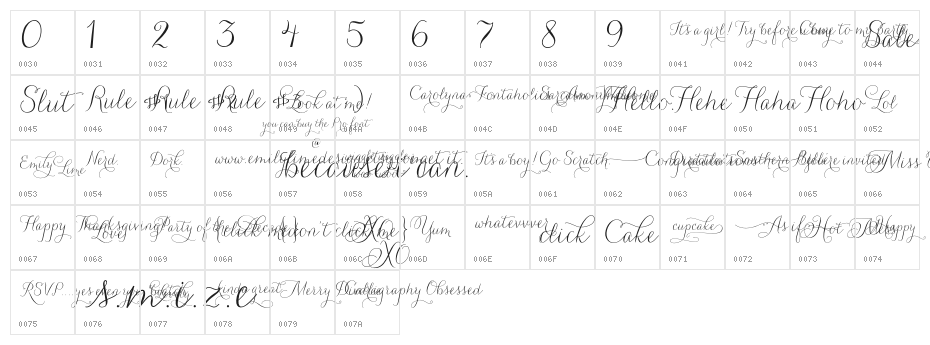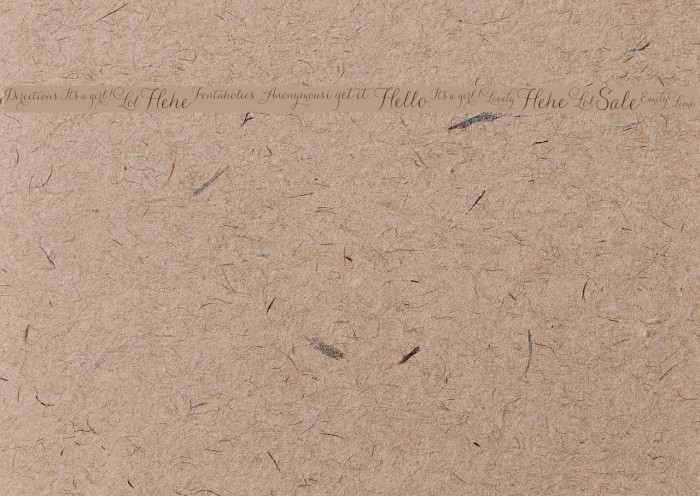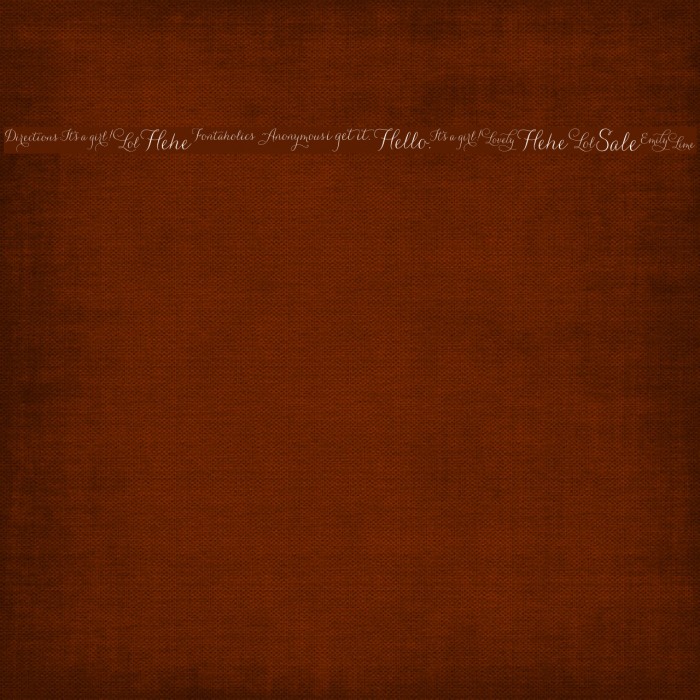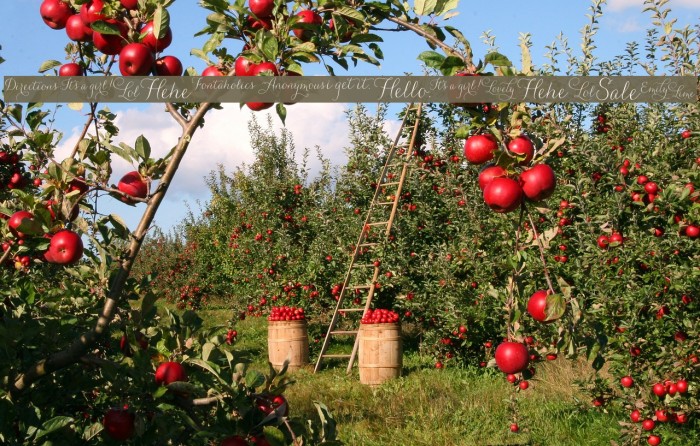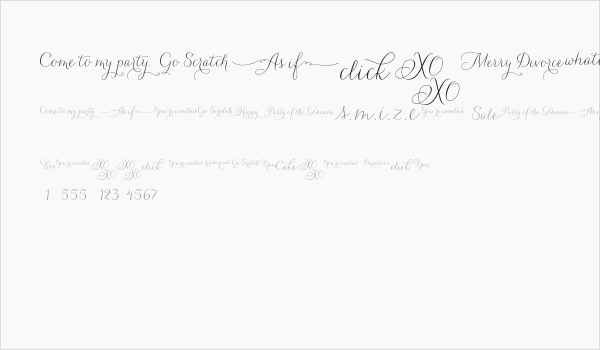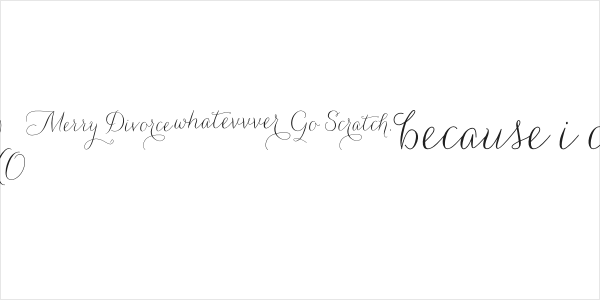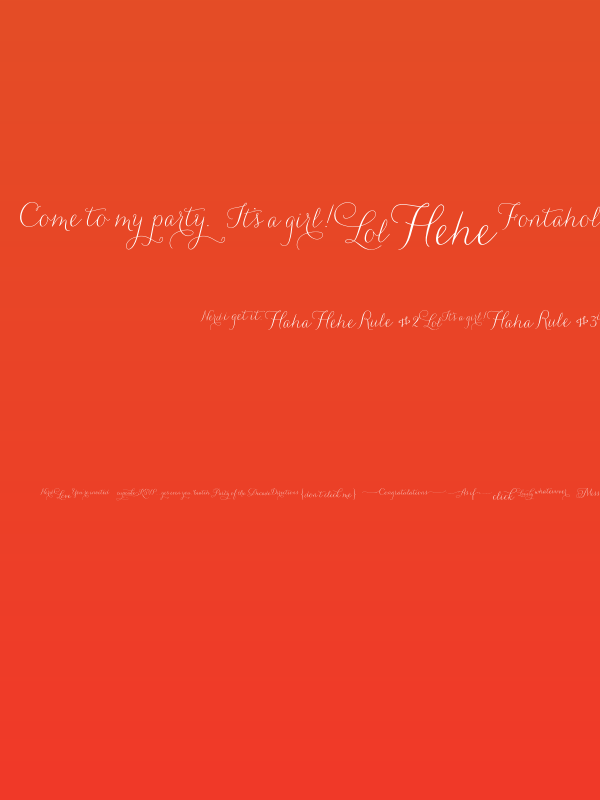
CarolynaWords Font
CarolynaWords Description
This font exudes elegance and sophistication with its flowing, cursive style. The characters are intricately designed, featuring delicate loops and swirls that give it a handwritten feel. The uppercase letters are particularly ornate, with flourishes that extend beyond the baseline, adding a touch of drama. The lowercase letters maintain a consistent flow, enhancing readability while preserving the artistic flair. Numbers are styled with a slight slant, complementing the overall cursive theme. This font is ideal for projects that require a personal, elegant touch, such as wedding invitations, greeting cards, or branding for luxury products.
| Proposed Projects | Wedding invitations, greeting cards, luxury branding, personal stationery. |